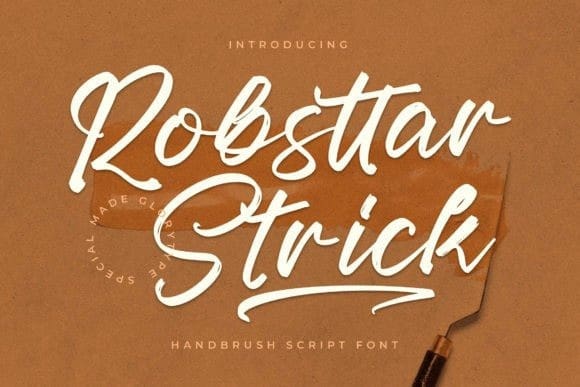
Robsttar Strick Font
Robsttar Strick Font is a modern and cool handwritten brush font. Incredibly versatile, this font is perfect for creating fashionable, chic designs.